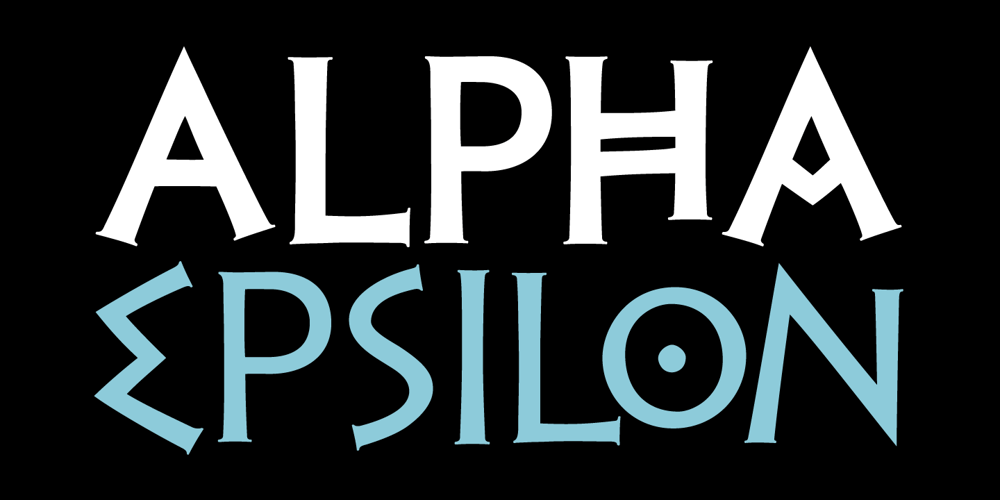
PF Hellenica Pro Font Family was designed by Panos Vassiliou and published by Parachute. PF Hellenica Pro contains 2 styles and family package options. The Golden Age of the Greek Civilization. The world’s history carved on stone. Hellenica Pro was created based on numerous photos from archaeological sites and several other historical references dating back to 1100 B.C. In order to capture the essence of this writing, there are a few alternate forms used at lowercase, uppercase and/or accented positions. These alternates come from different regions in Greece. For instance, uppercase Theta was used by the Cretans and the Korinthians, whereas uppercase Delta by the Ionians. PF Hellenica Pro comes in 3 versions: Light, regular and bold. The new ‘Pro’ version has been expanded to include 3 major scripts: Latin, Greek and Cyrillic.